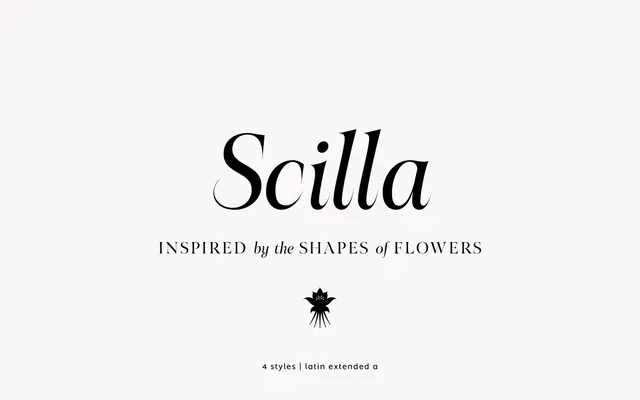
Scilla
A modern serif from atipo offered in a regular width and a Narrow cut, each with a true italic.
Scilla is atipo foundry's modern serif, offered in a regular cut and a Narrow companion that drops the proportions for tighter columns and stacked headlines. Both widths ship with a true italic, giving editorial designers a pairing that can carry runs of body copy and shift up into display sizes without losing personality. Sits alongside contemporary editorial serifs and works well in fashion, lifestyle and culture publishing.
A modern serif with a regular width and a Narrow companion, each in roman and italic. The contrast and bracketed terminals place it in contemporary editorial serif territory.